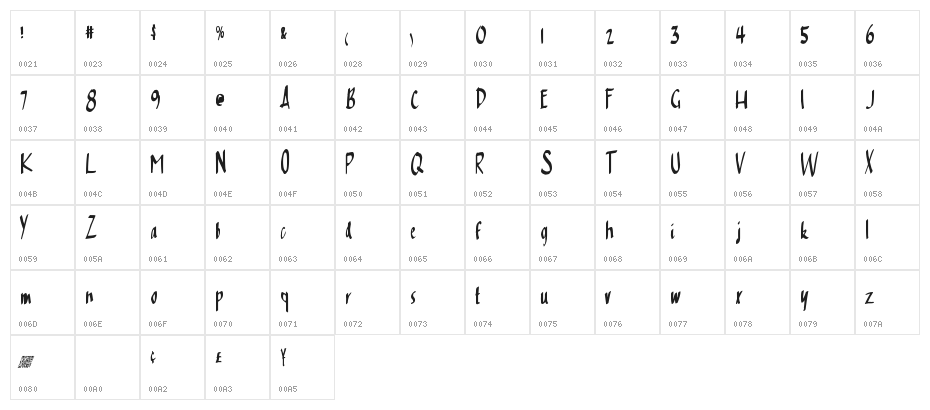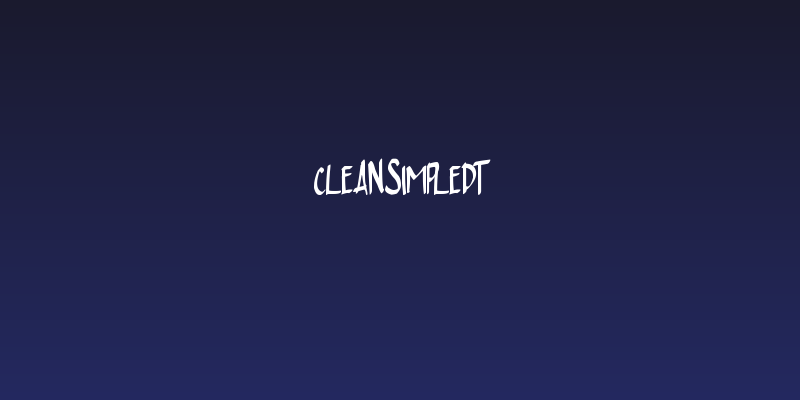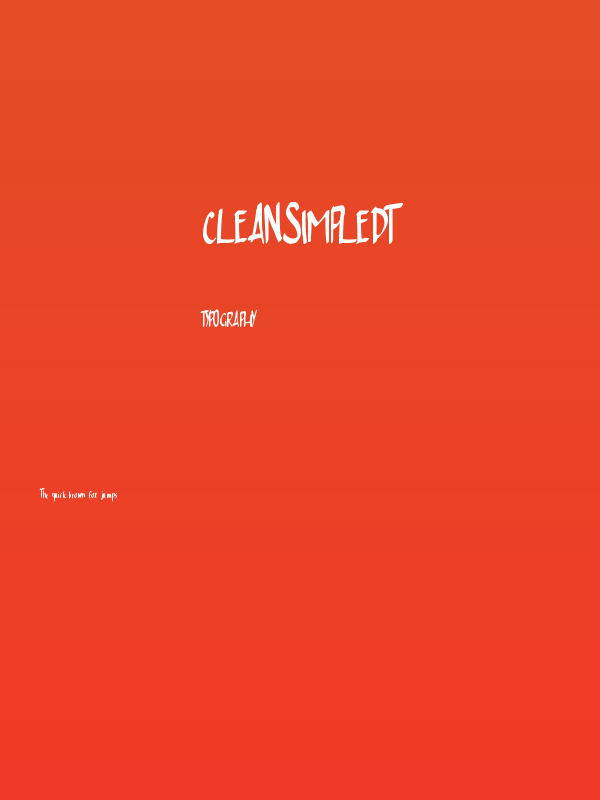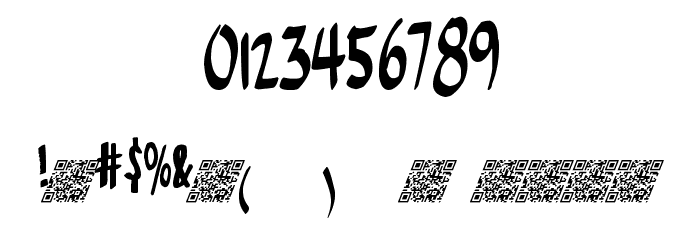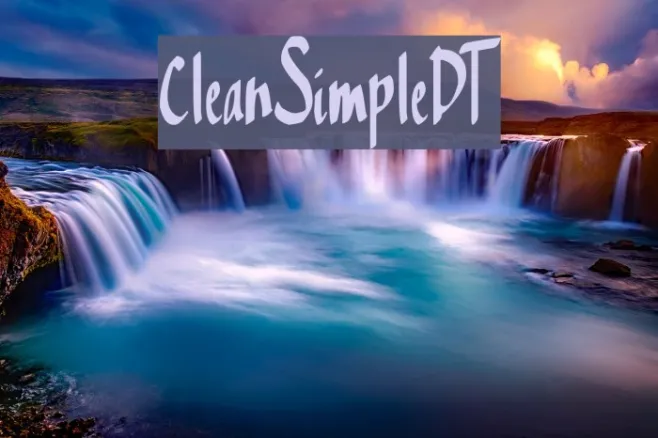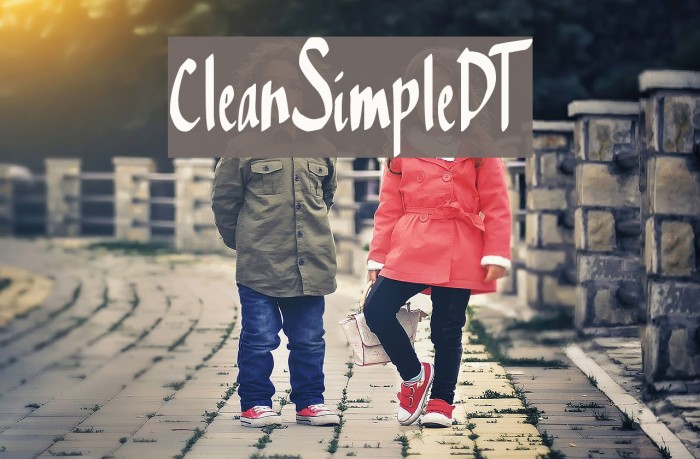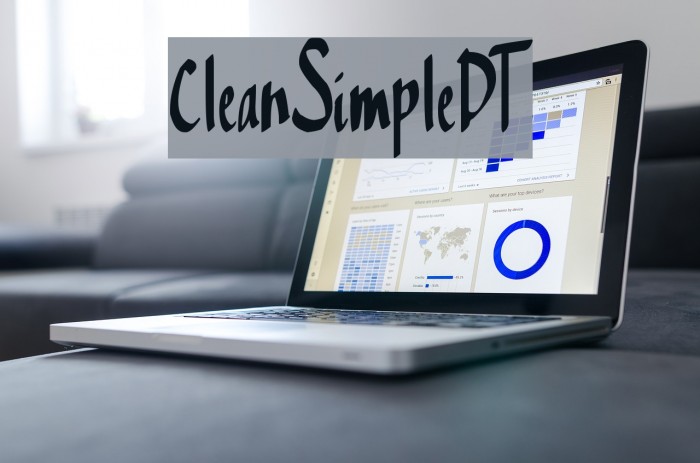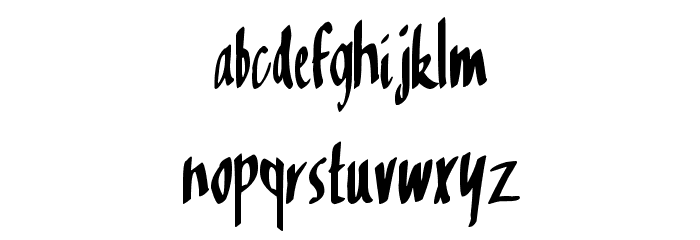
CleanSimpleDT Font
CleanSimpleDT Description
This font features a dynamic and energetic style with a handwritten appearance. The uppercase letters are bold and slightly slanted, giving a sense of movement and flair. The lowercase letters maintain a consistent style, complementing the uppercase with a slightly more compact form. Numbers are clear and legible, following the same stylistic cues as the letters. Special characters are creatively designed, adding to the font's playful and artistic nature. Overall, the font exudes a casual yet sophisticated vibe, making it suitable for various creative projects.